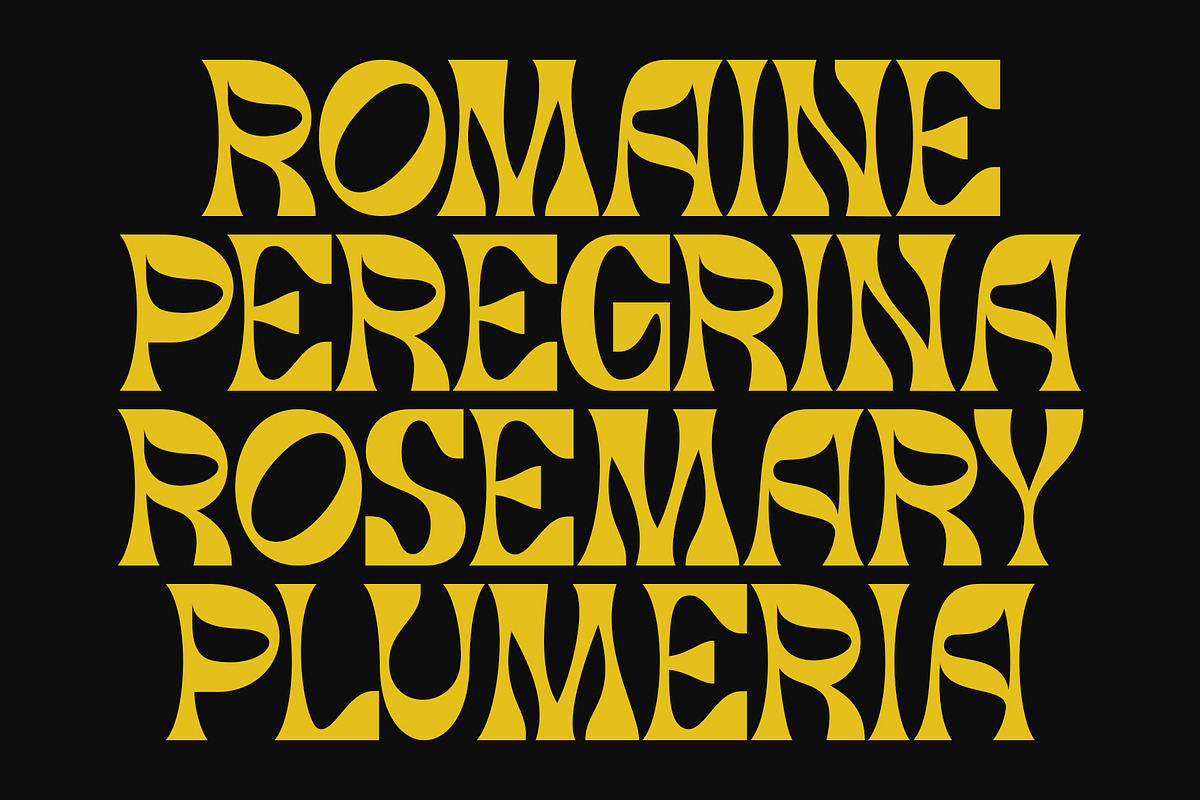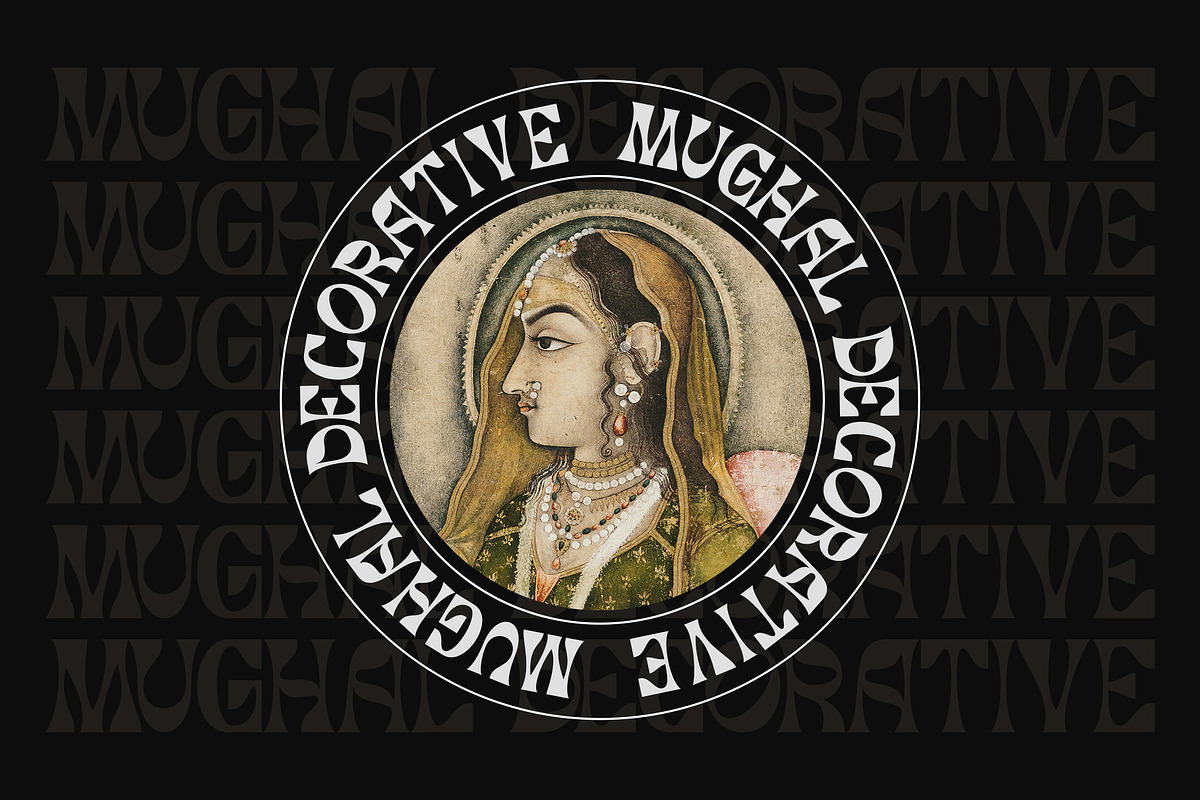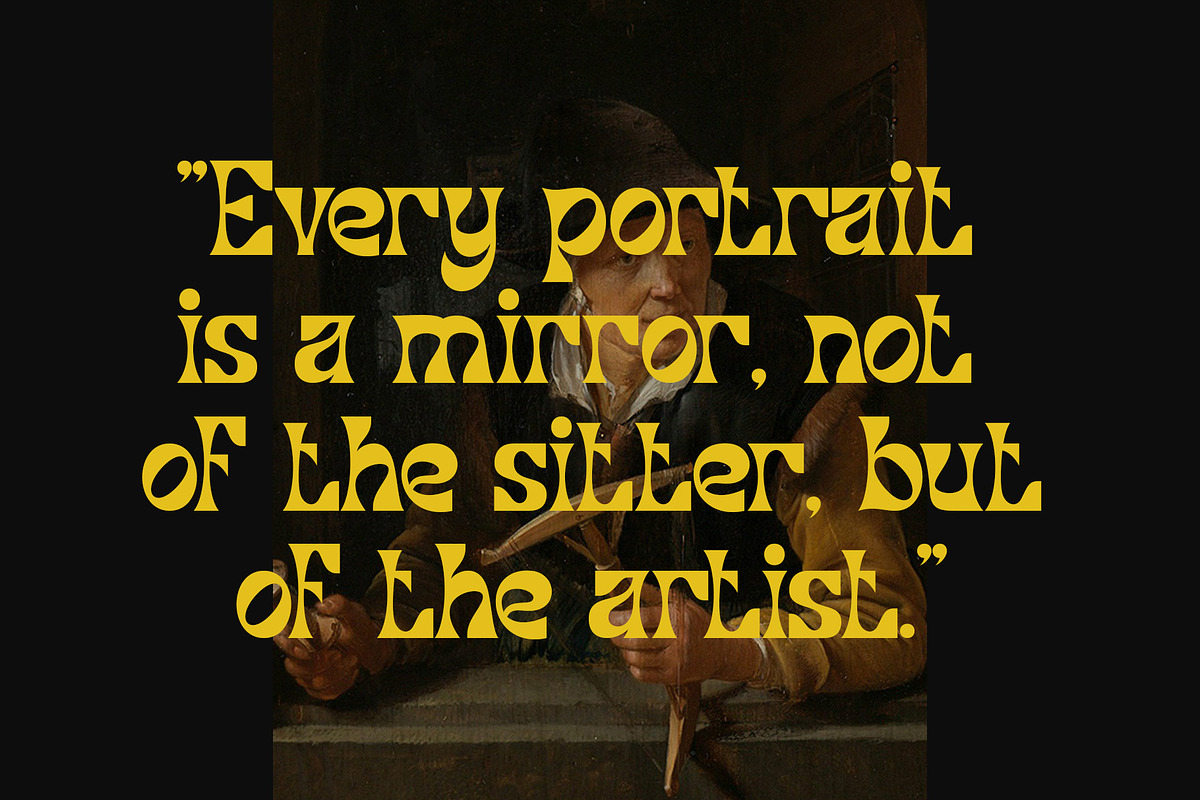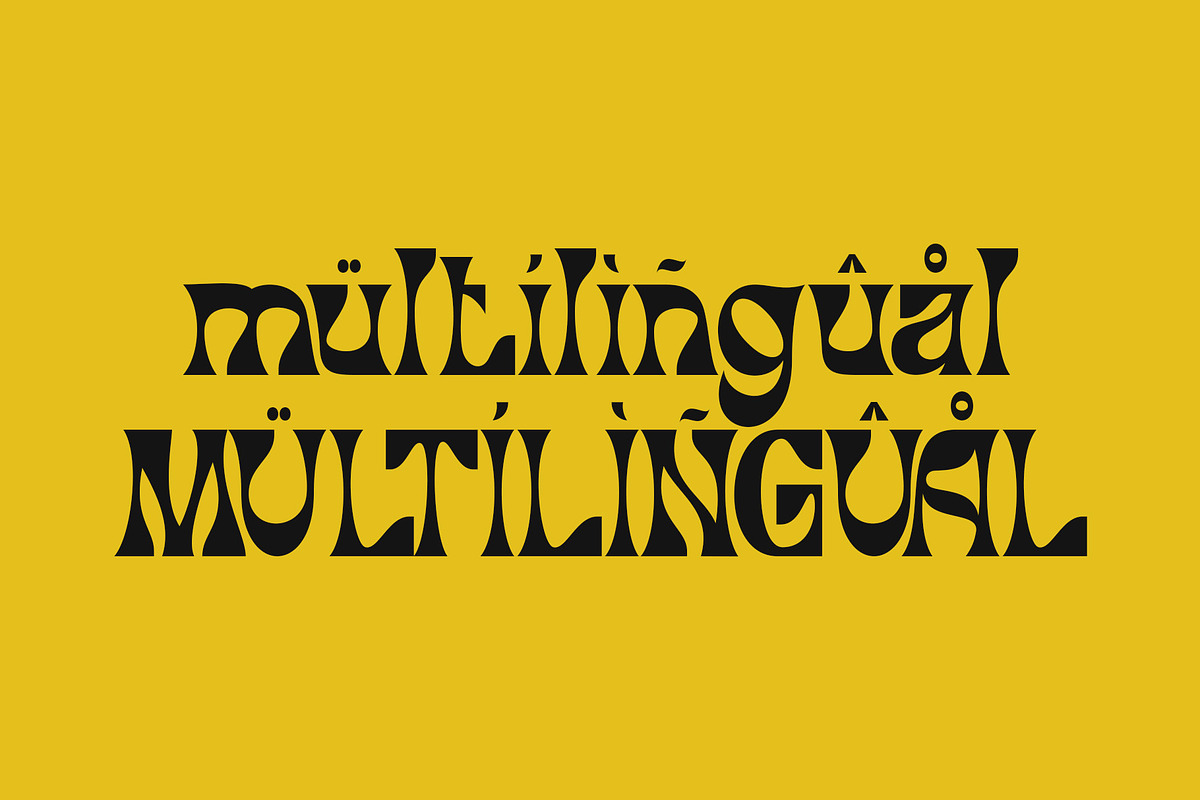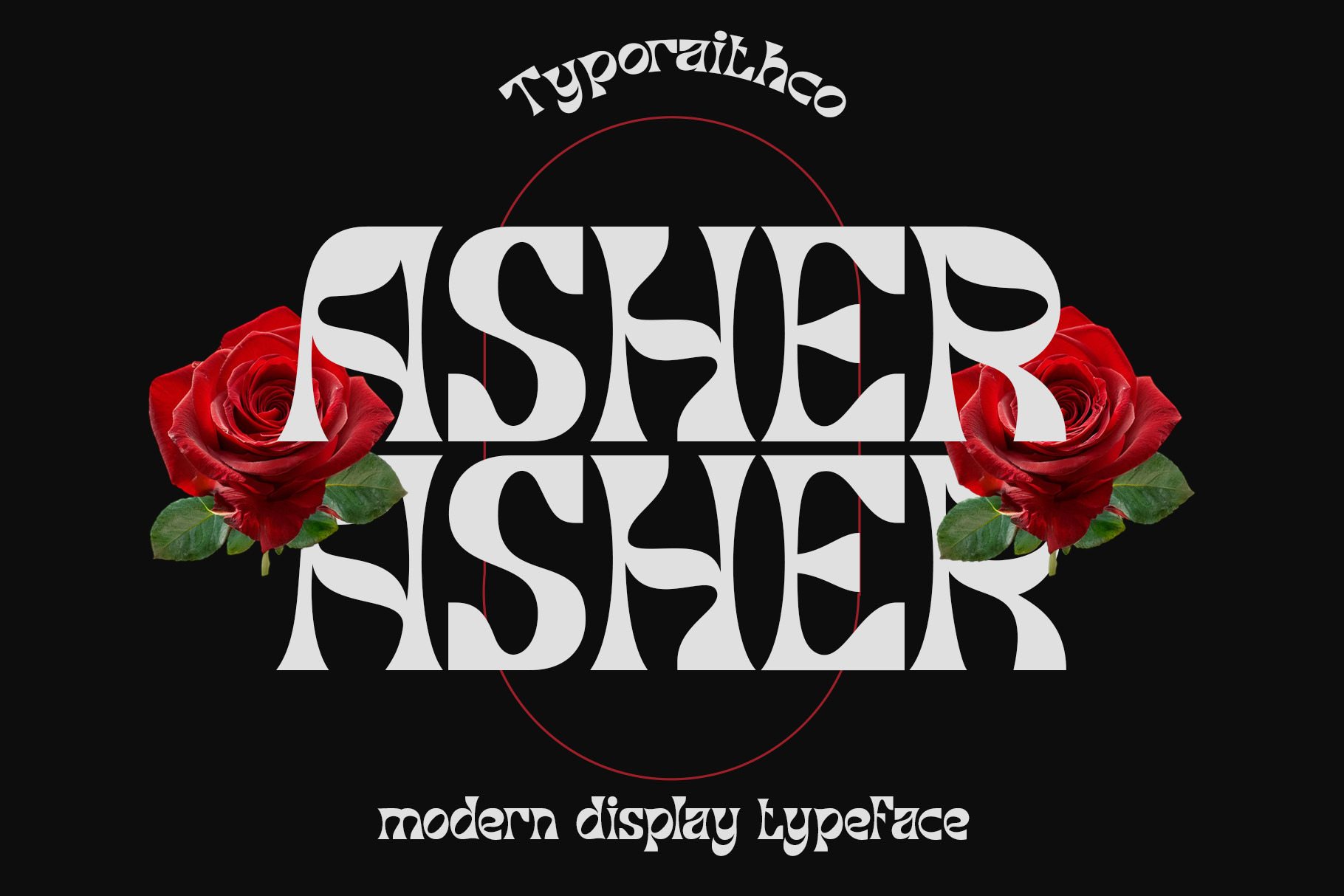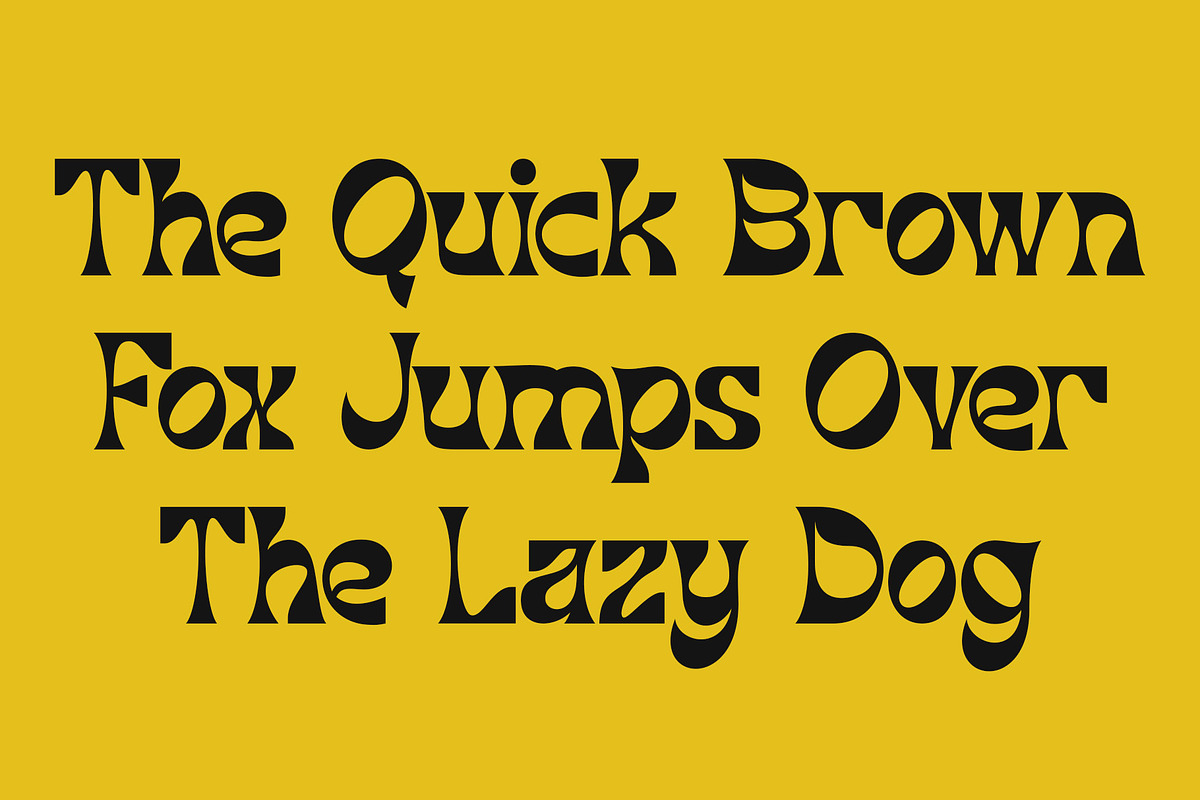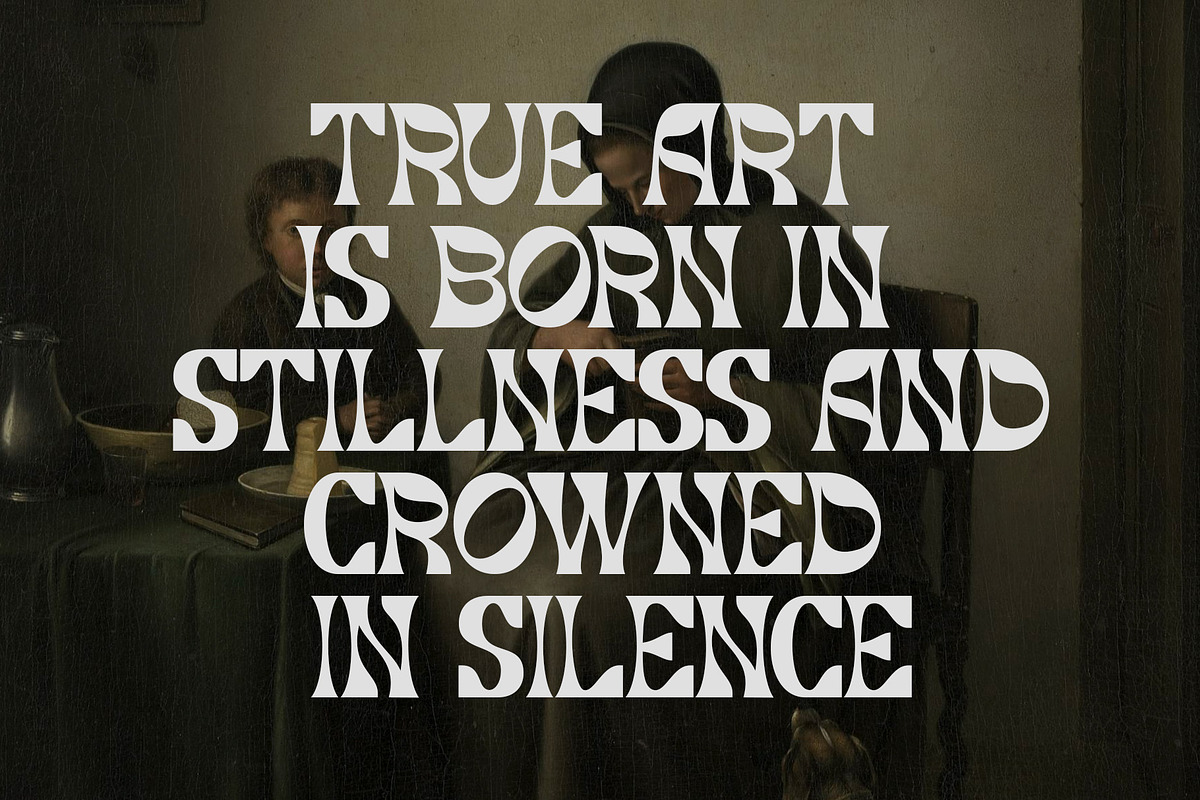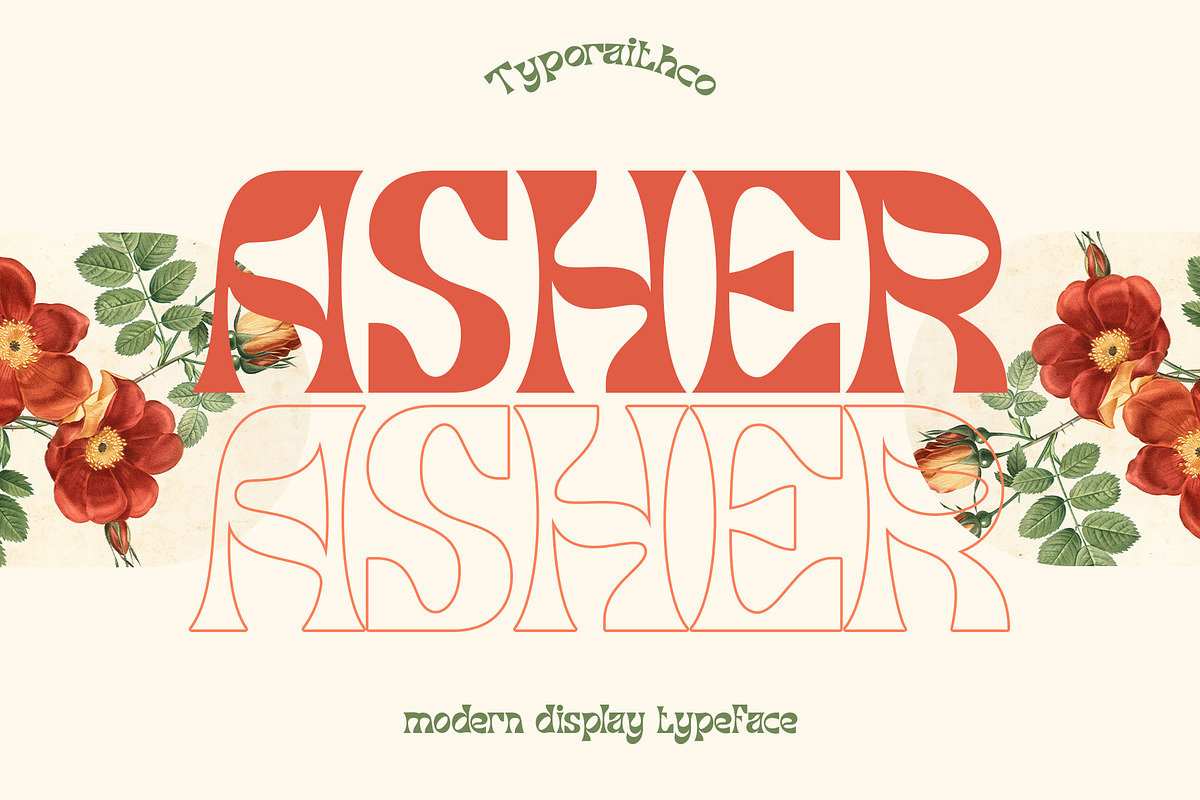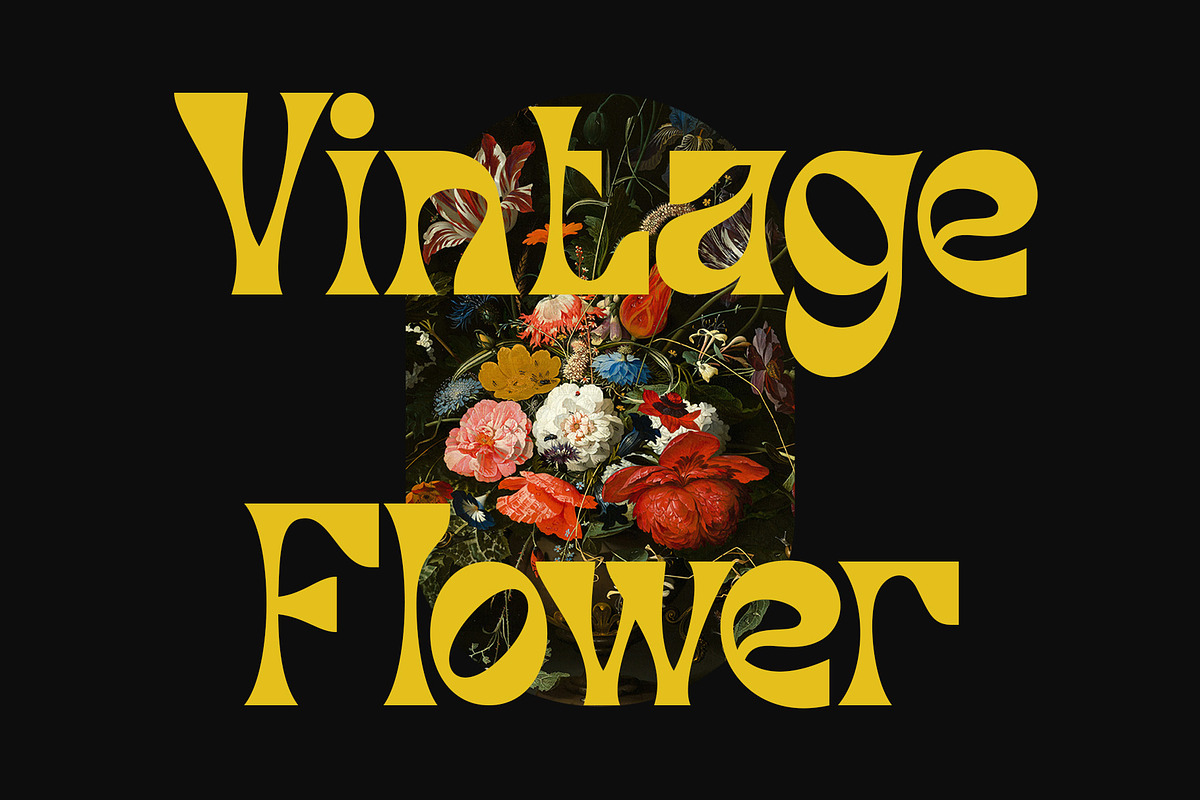
Asher | Modern Display Typeface
Asher is a modern decorative display typeface that blends elegance with bold design. Featuring unique letterforms, artistic curves, and refined geometric elements, Asher is perfect for creating eye-catching visual content with a distinct character.
Give your work a bold decorative twist with Asher—a stylish typeface that speaks with flair.